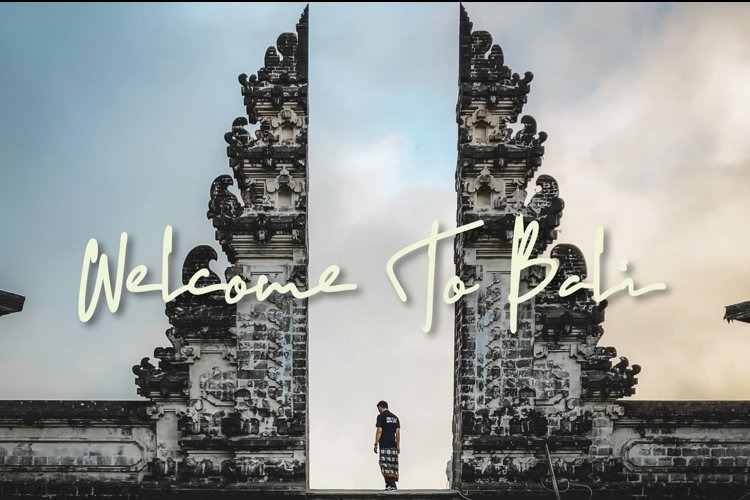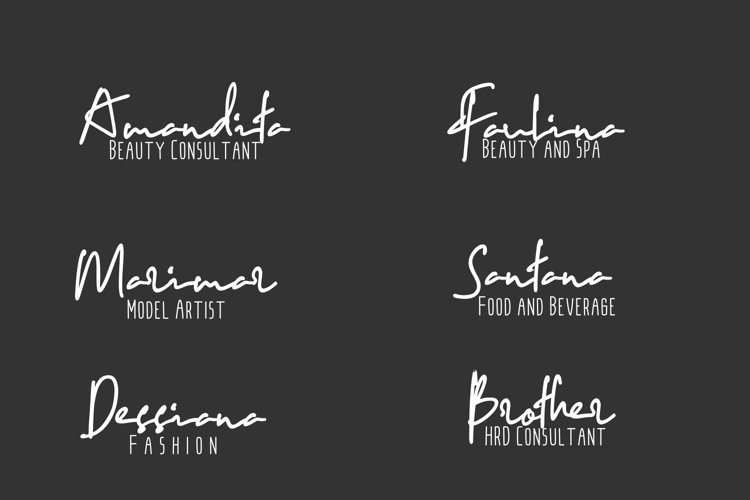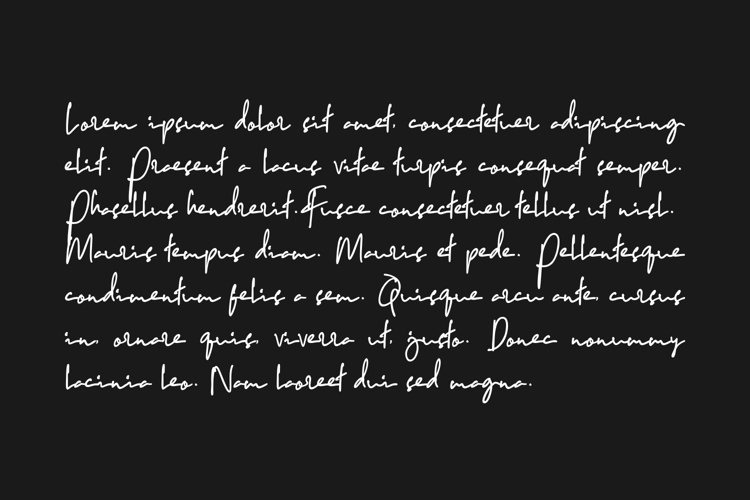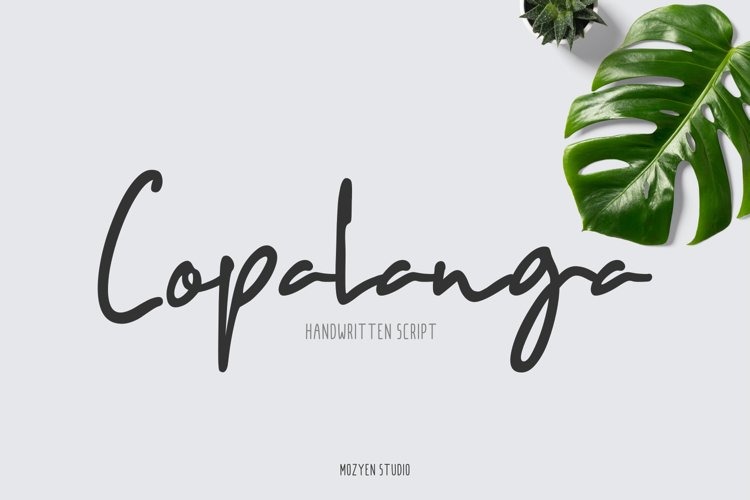
Copalanga Handwritten Font
It’s a beautiful modern hand-drawn font from designer Mozyen Studio. Bluegold Font is perfect for many different project such as logos & branding, invitation, stationery, wedding designs, social media posts, advertisements, product packaging, product designs, label, photography, watermark, special events or anything.